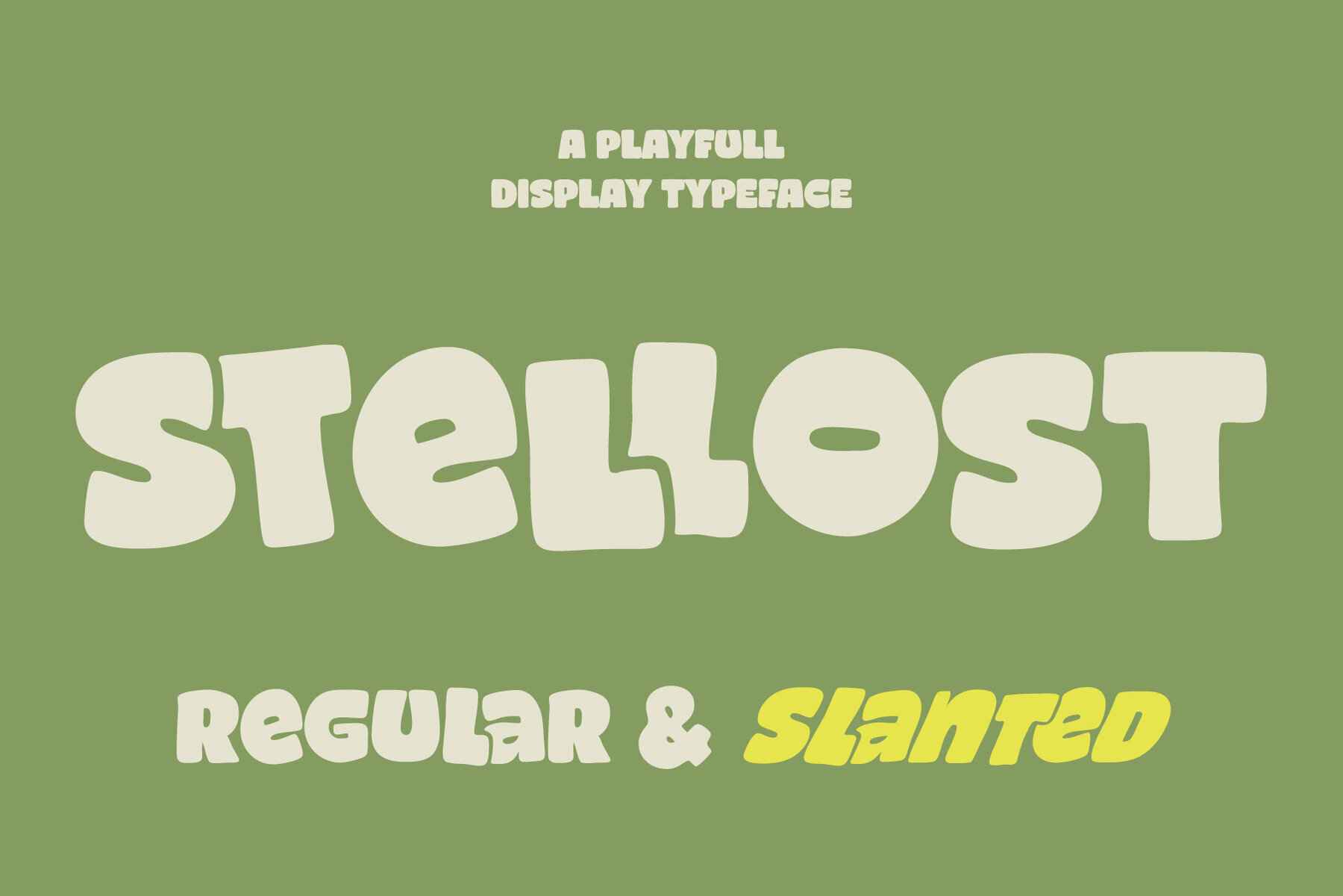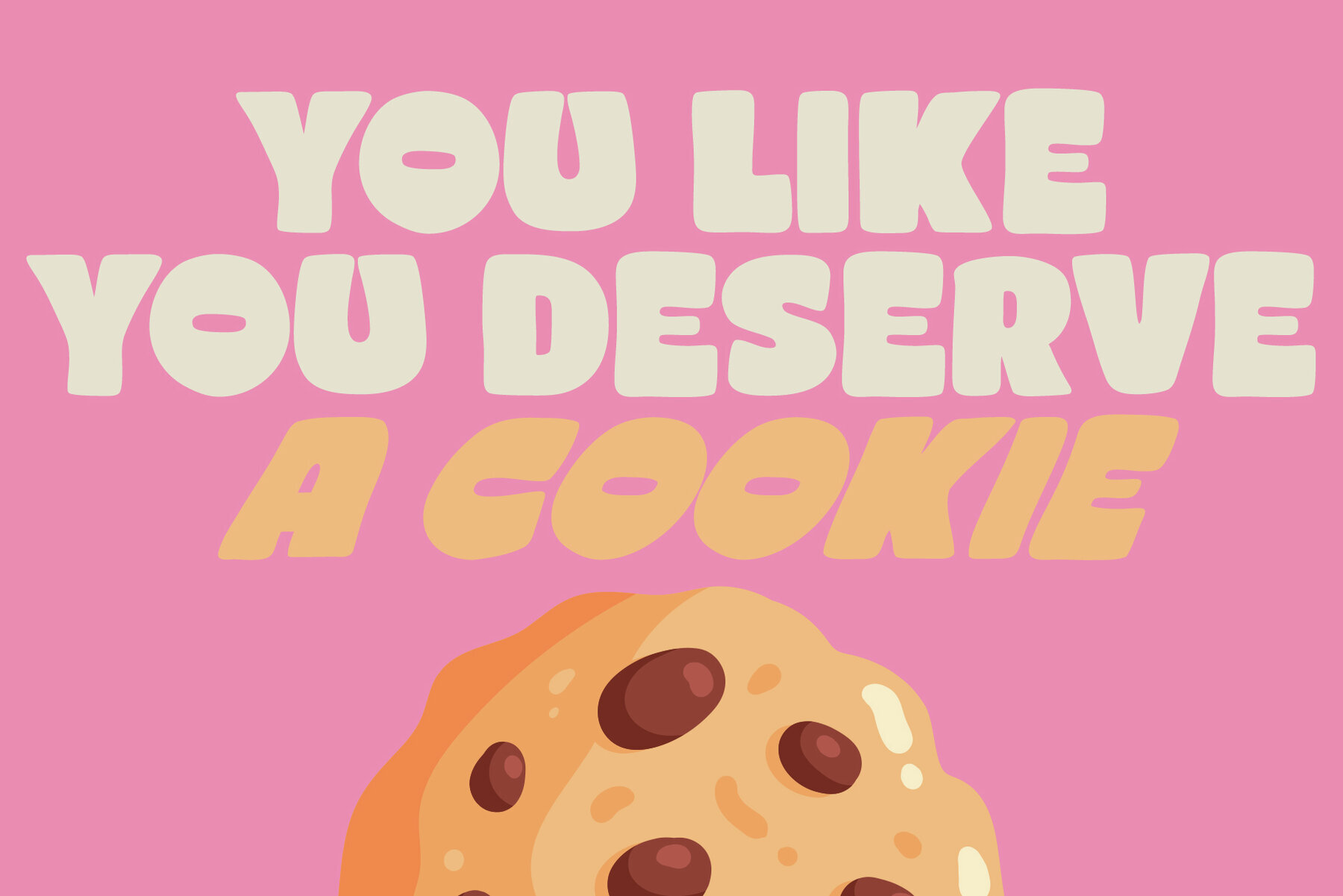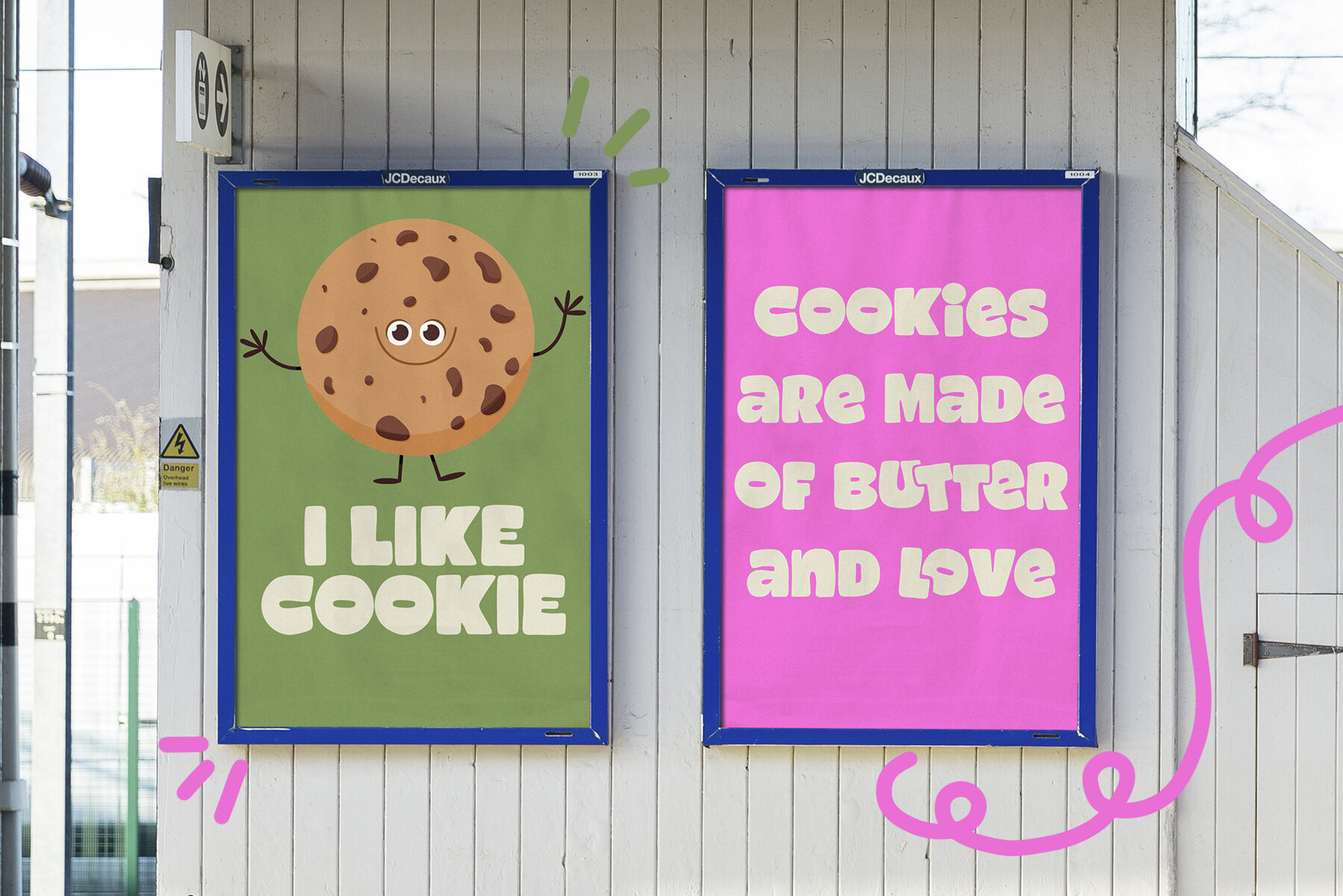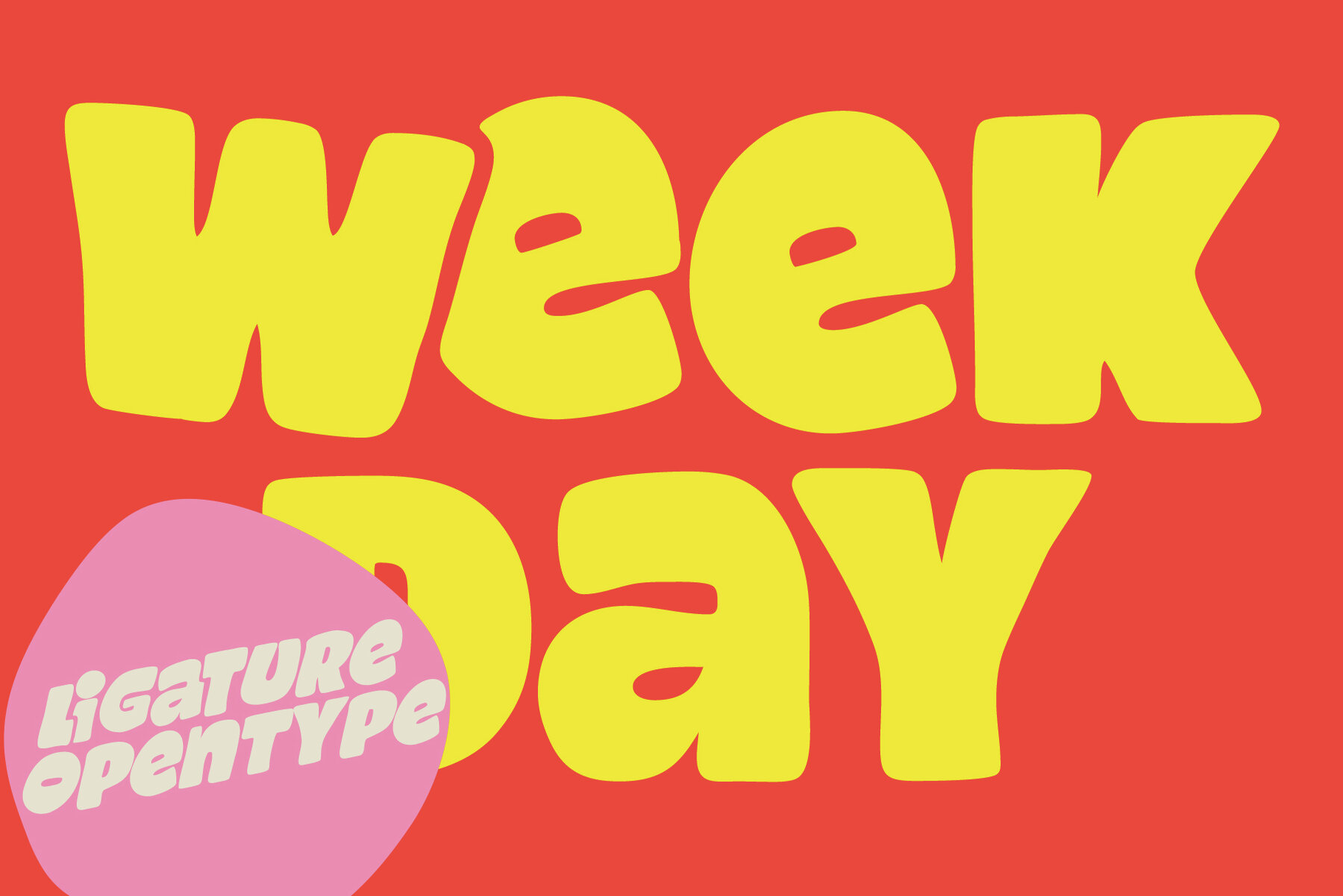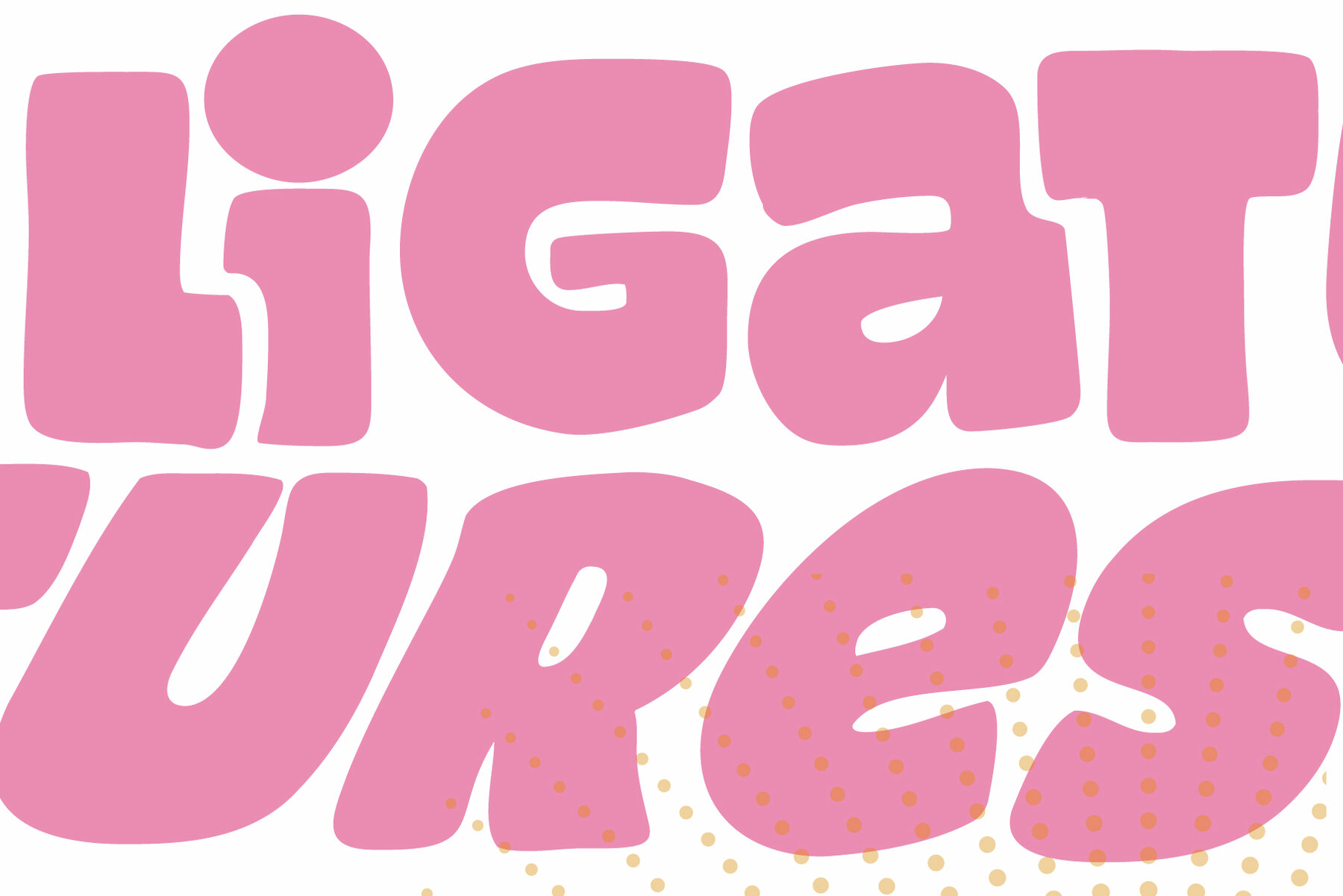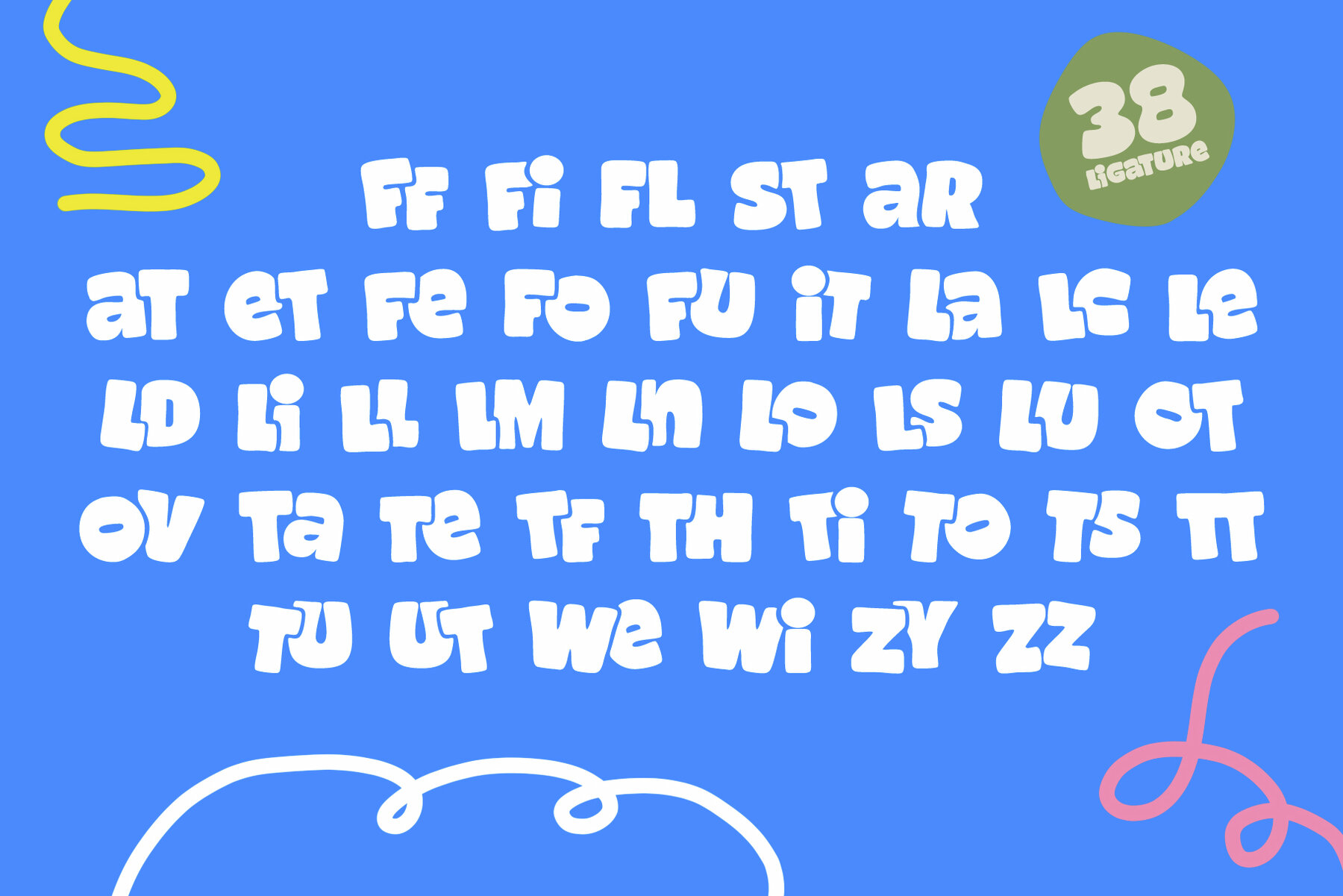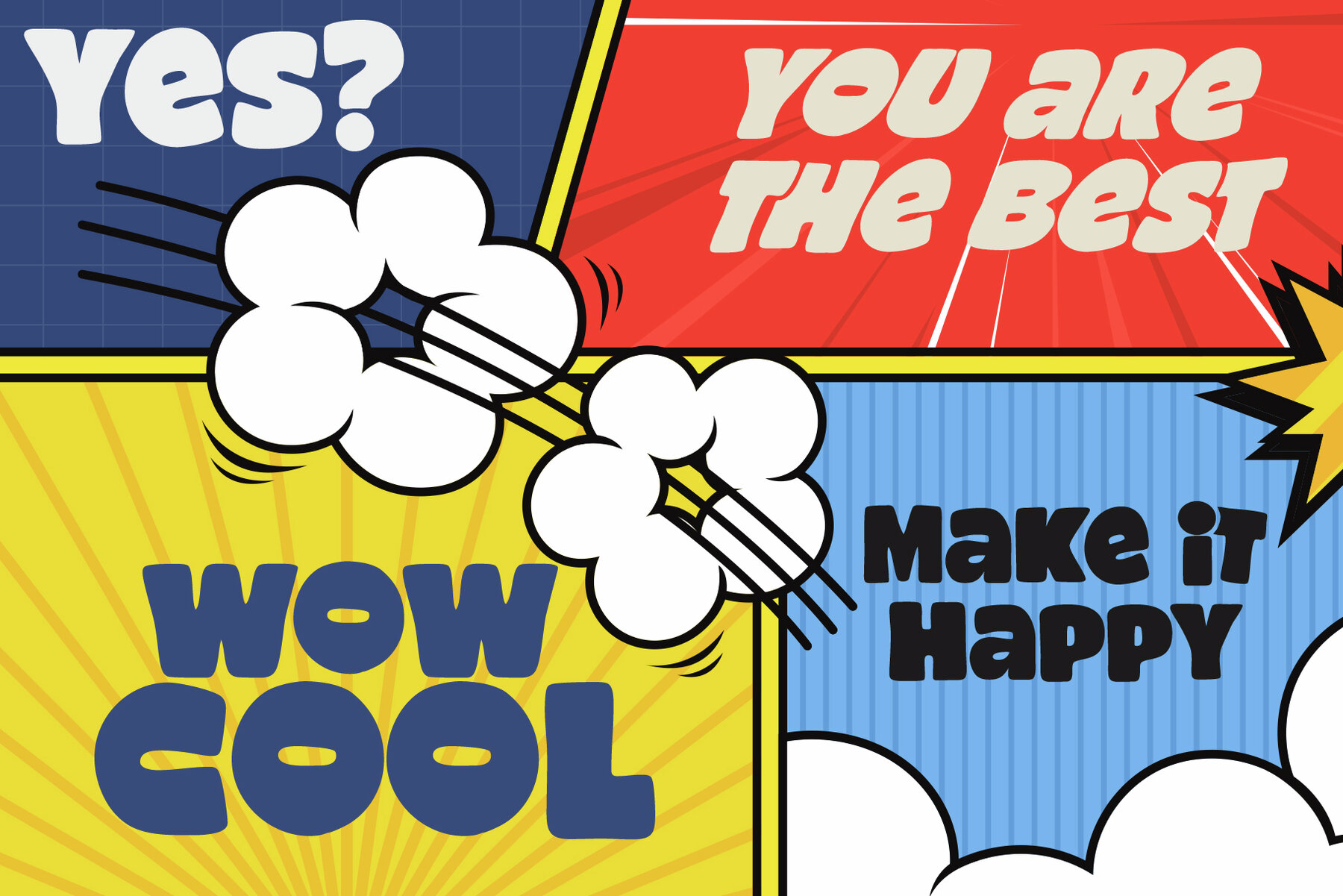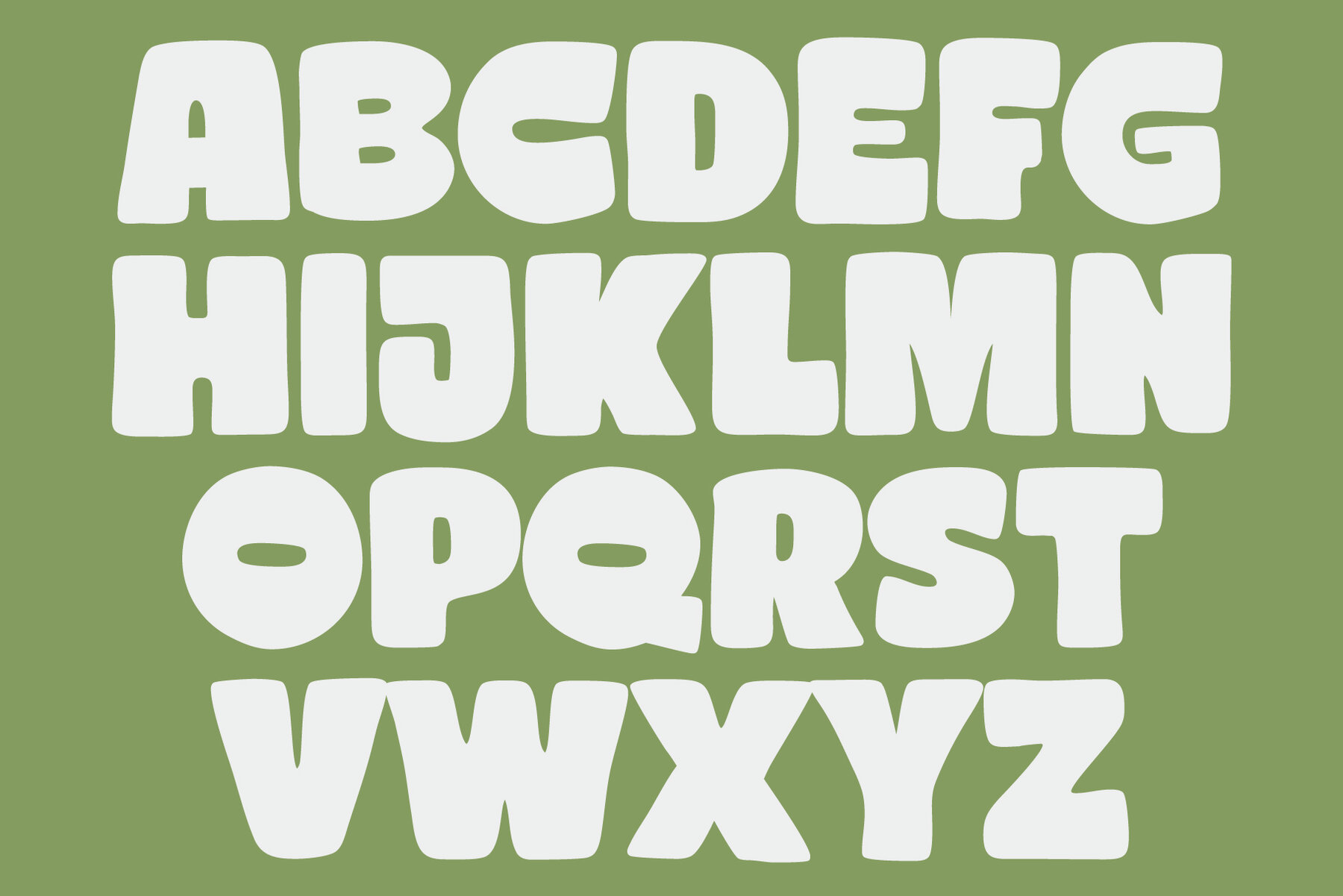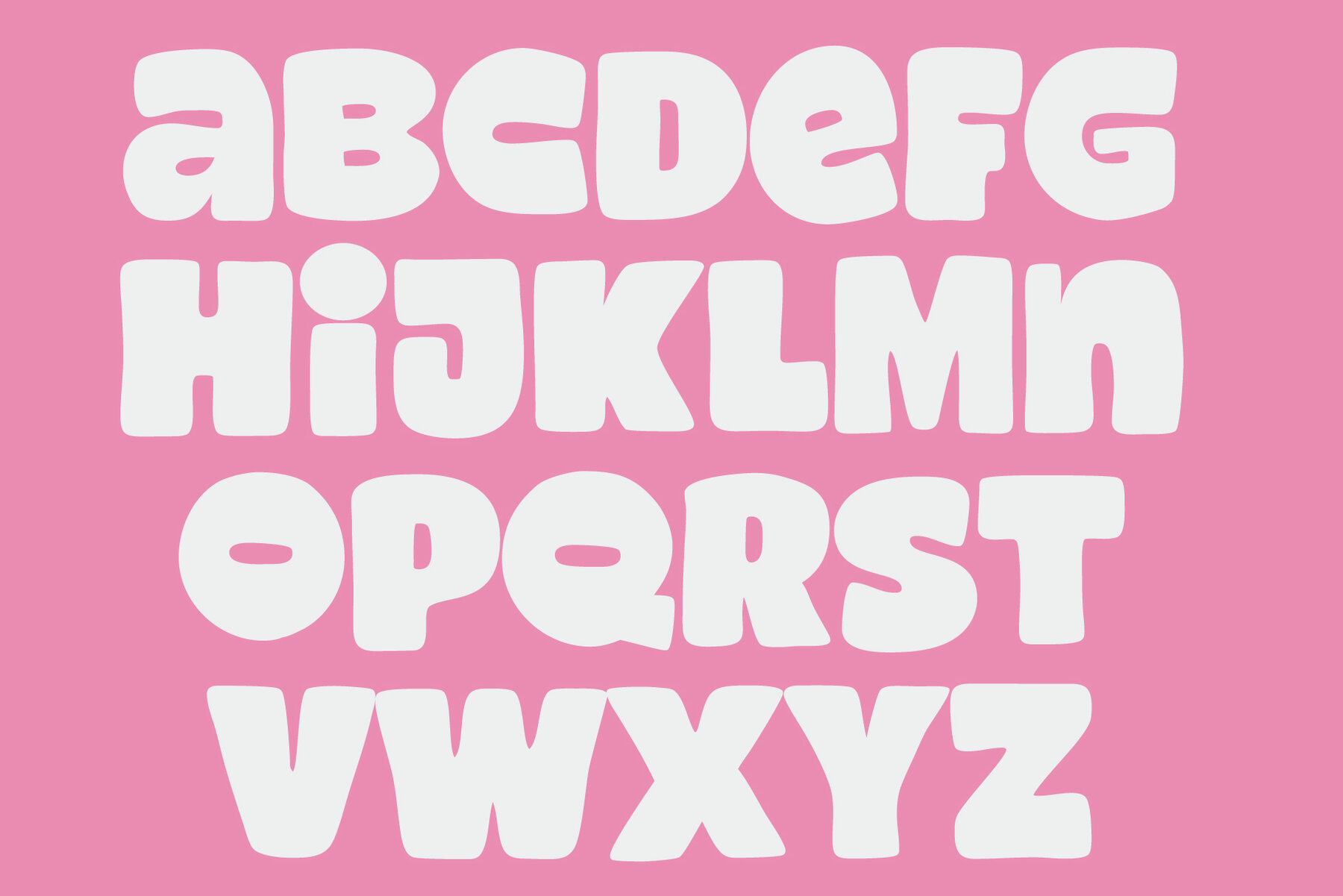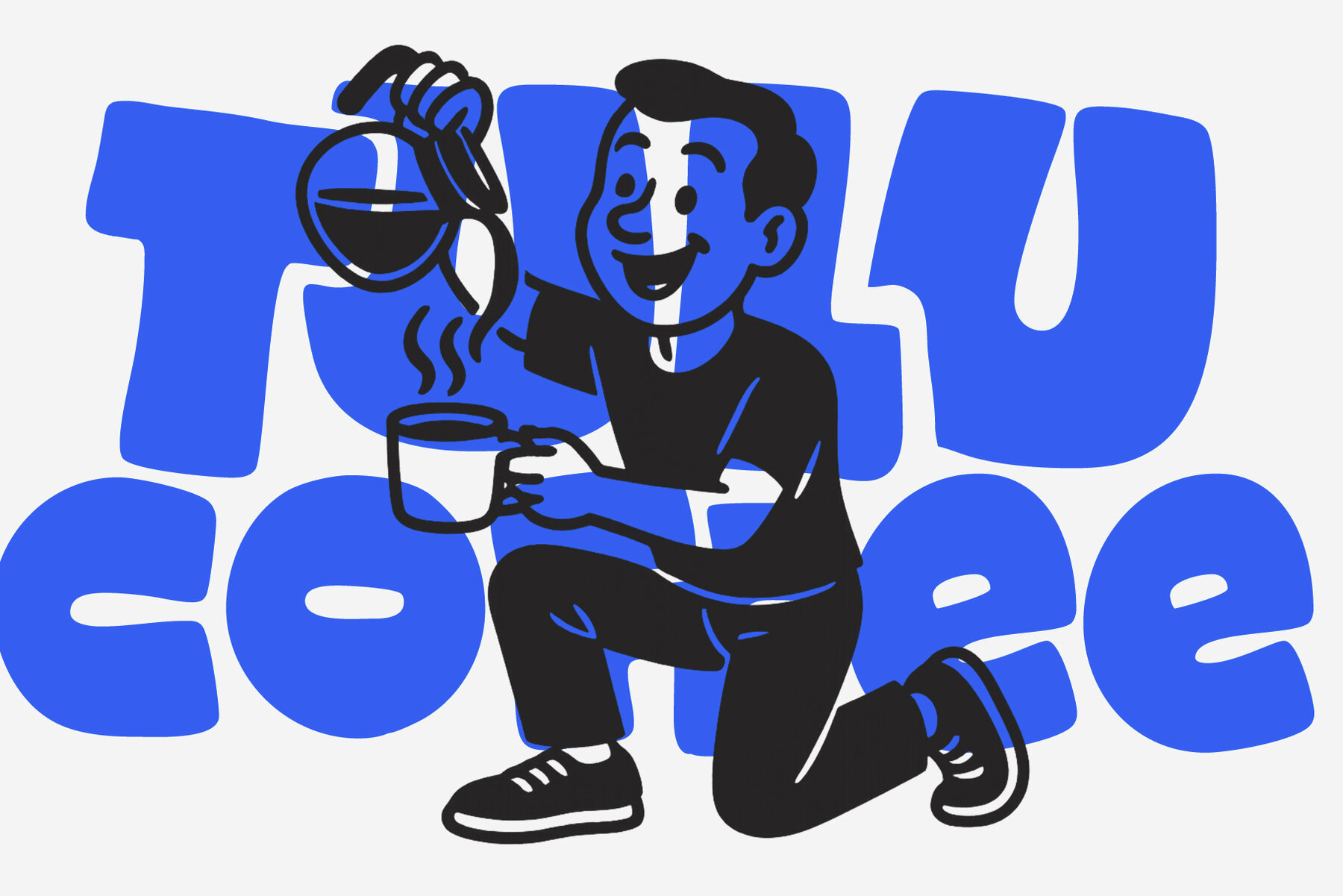
Stellost Font
Stellost is a vibrant display typeface designed to radiate warmth and ease. Its chunky, soft-edged letterforms and organic rhythm create a welcoming atmosphere, making it ideal for playful, expressive designs. Stellost suits posters, branding, packaging, and social media—any project that calls for friendly, approachable typography. Every curve and outline adds personality, ensuring your message stands out with charm. Available in both Regular and Slanted styles, Stellost offers the flexibility to adjust tone, from bold and stable to lively and dynamic. This typeface includes 38 unique ligatures, helping create smooth word shapes and enhancing typographic variety. Whether you’re working on food packaging, comic book titles, or engaging campaign visuals, Stellost’s joyful character brings designs to life.Stellost Playful Display Typeface